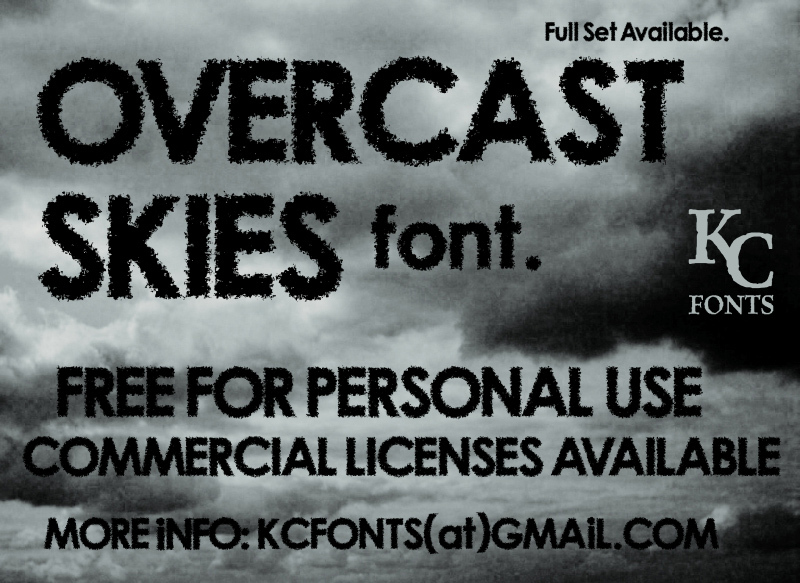
Overcast Skies by Kevin Christopher of KC Fonts is a free eroded display font with broad, forceful capitals and a heavily weathered surface. Its rough edges look scraped and chipped, with strokes that keep the lettering compact. The uneven wear gives each letter an industrial character.
Rock music and street culture are its clearest territory. It suits album covers, concert posters, skate merchandise, and apparel graphics. The font's strongest role is turning a band name into a screen-printed emblem.